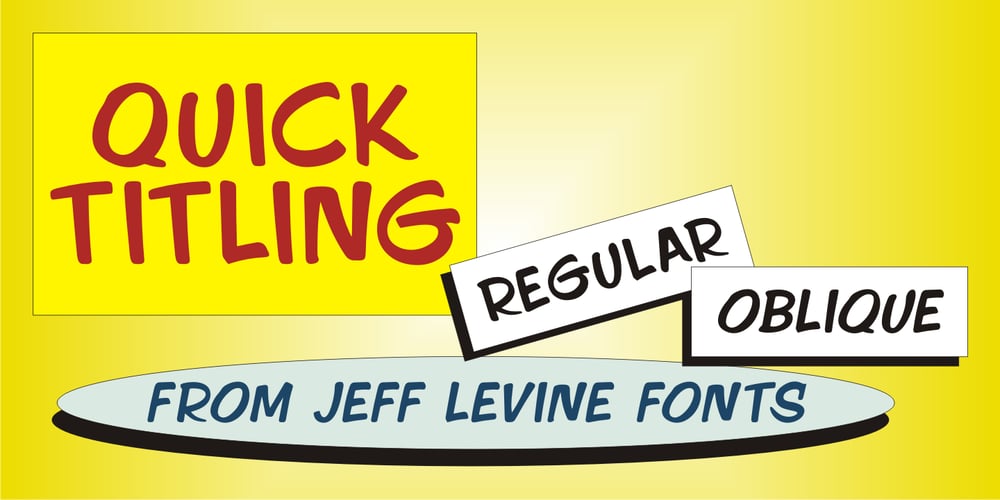
Quick Titling JNL
Quick Titling JNL Font Family was designed by Jeff Levine and published by Jeff Levine. Quick Titling JNL contains 2 styles and family package options. An ad spotted in a 1960 issue of Billboard magazine promoting a 45 rpm release by Randy Lee doing the old song “Did You Ever See A Dream Walking?” featured the song title in a casual, brush lettered style. While the ad made a perfect model for a digital font design, the record itself tanked. Quick Titling JNL is available in both regular and oblique versions.